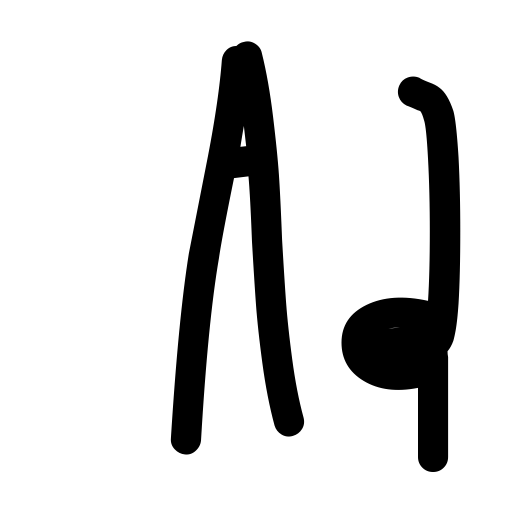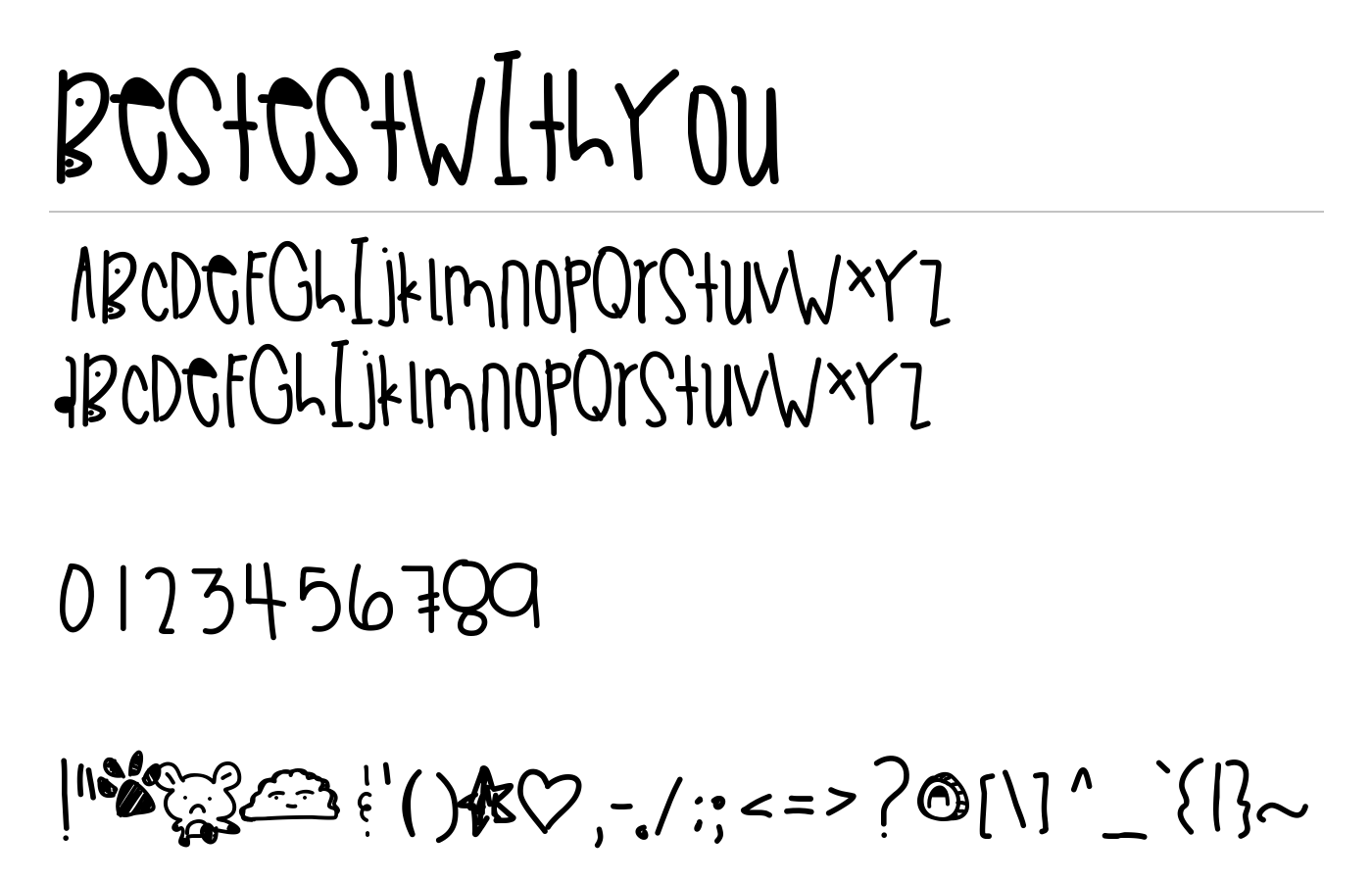
BestestWithYou is a playful, hand-drawn sans serif font with tall, irregular letterforms that give it a casual, whimsical feel. Its thin strokes and quirky, slightly uneven shapes make it ideal for fun, informal designs like children's books, greeting cards, and lighthearted branding. This font brings a friendly and approachable personality to projects that want to feel personal and creative.
BestestWithYou Font